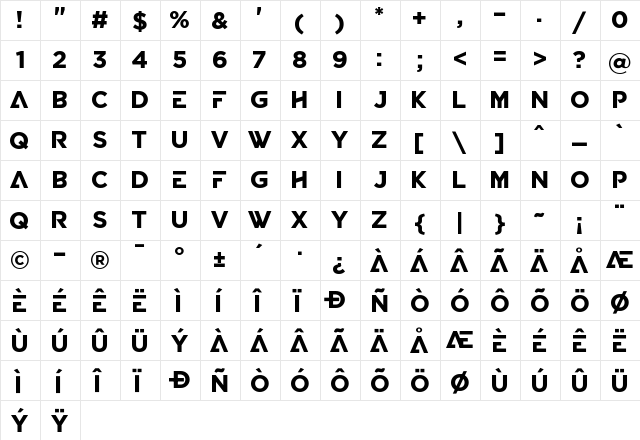
BABAPRO FONT Bold
| Designer | CreativeKiller |
Design Context for BABAPRO FONT Typeface
BABAPRO FONT is a composed and adaptable typeface that performs quietly and consistently across a wide range of design contexts. Its bold stroke weight gives it real presence on the page.